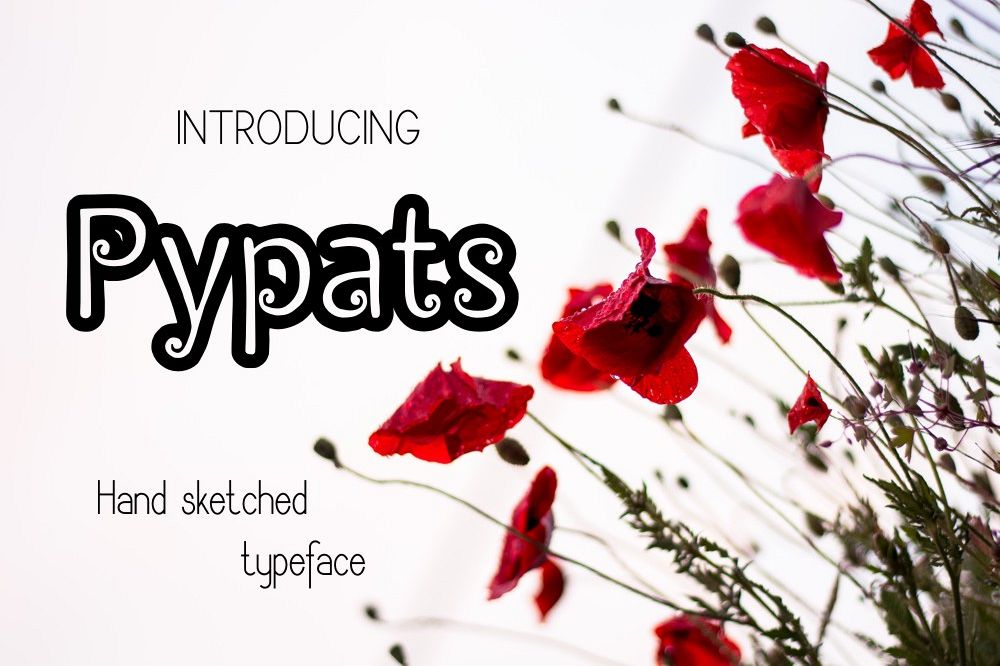
Pypats font
Introducing Pypats hand drawn decorative font.
This font is great for titling, signage, logo, poster, flyers or t-shirts design, headlines, and more!